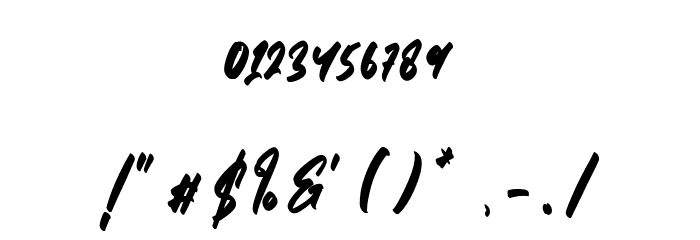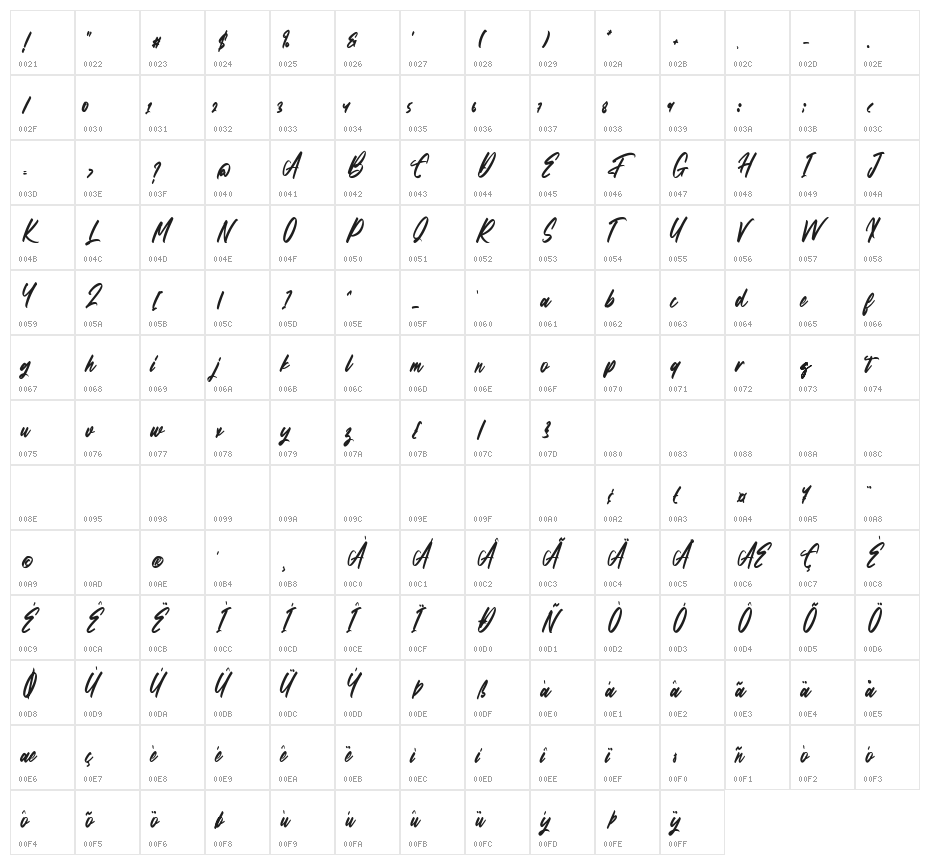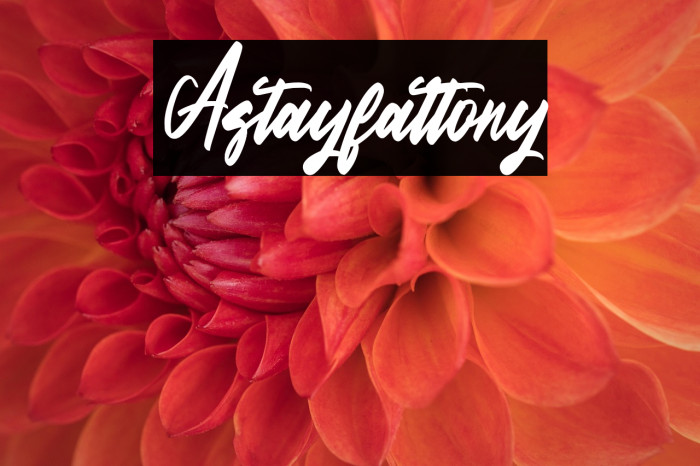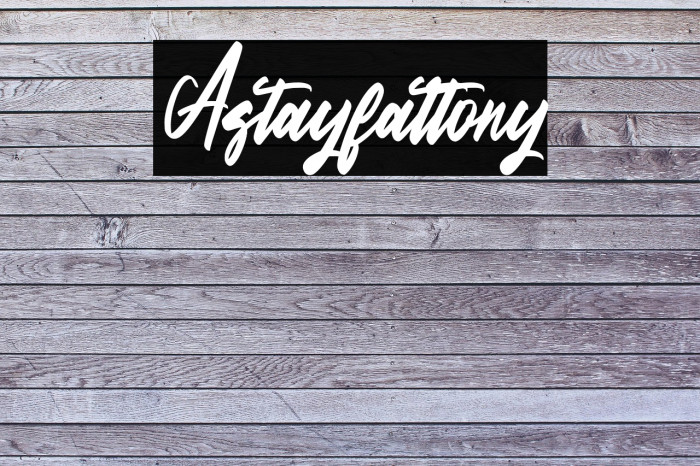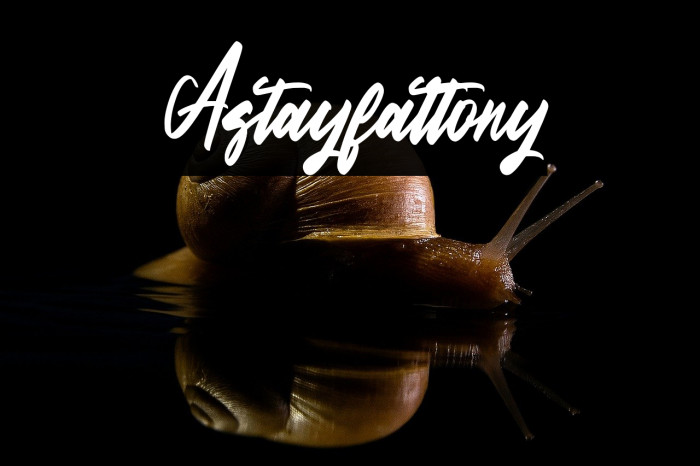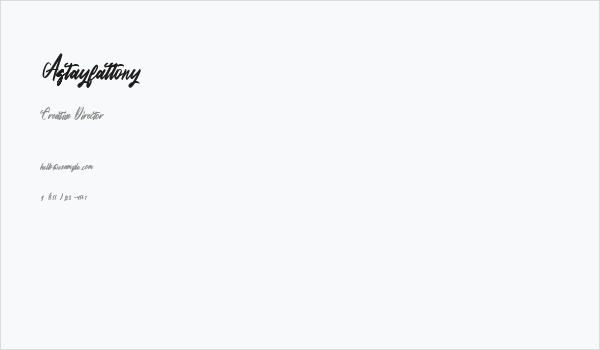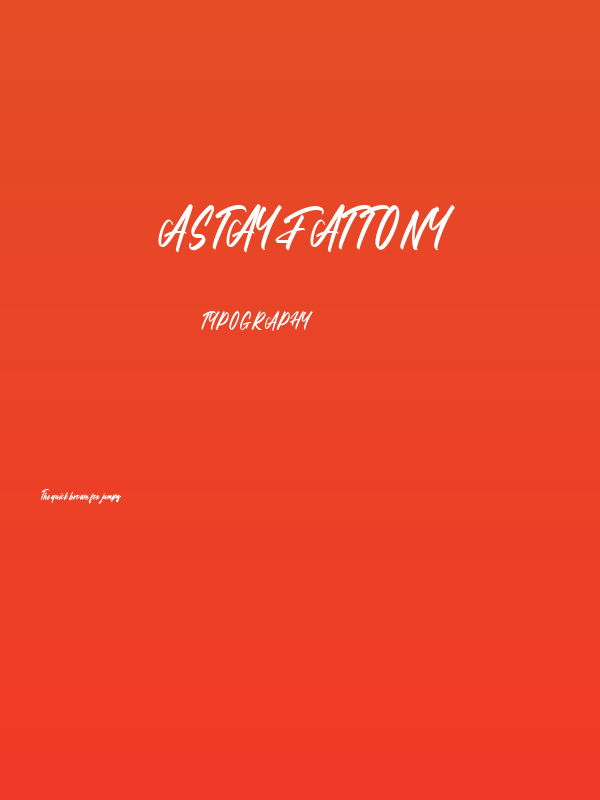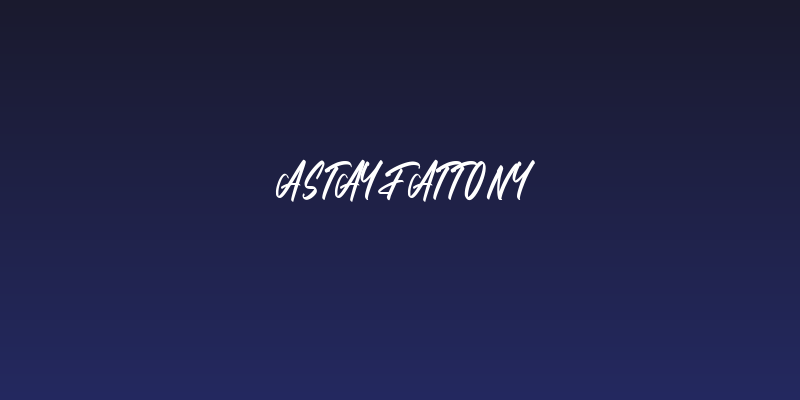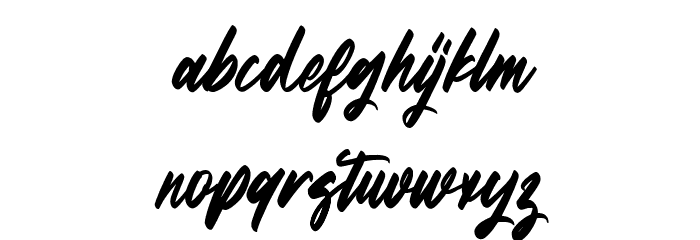
Astayfattony Font
Astayfattony Description
This font features a dynamic and flowing script style, characterized by its elegant and fluid strokes. The uppercase letters exhibit a sense of movement and flair, with each character seamlessly connecting to the next. The lowercase letters maintain this fluidity, offering a harmonious and cohesive appearance. Numbers and special characters are crafted with the same attention to detail, ensuring consistency throughout. The overall design exudes a sense of sophistication and modernity, making it ideal for projects that require a touch of elegance and personality.